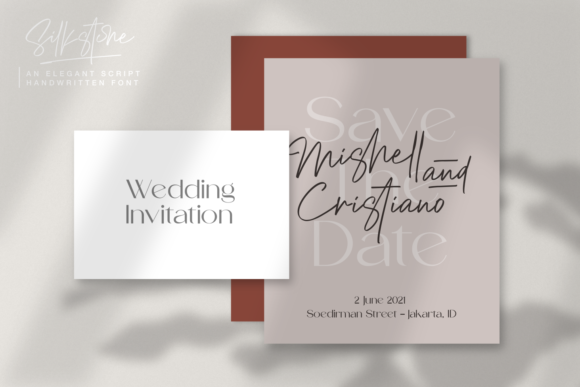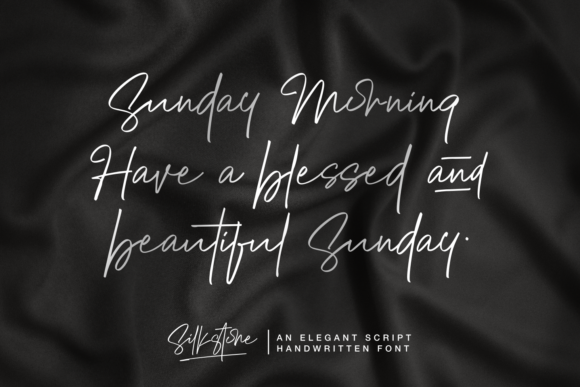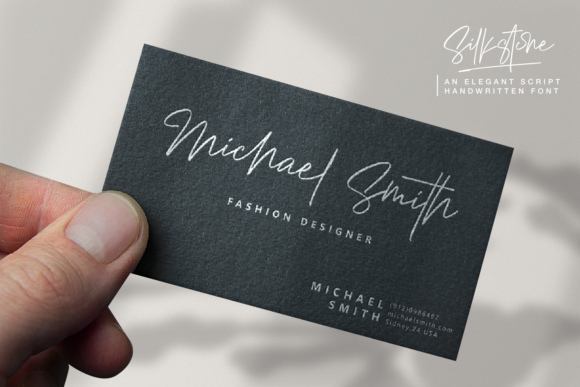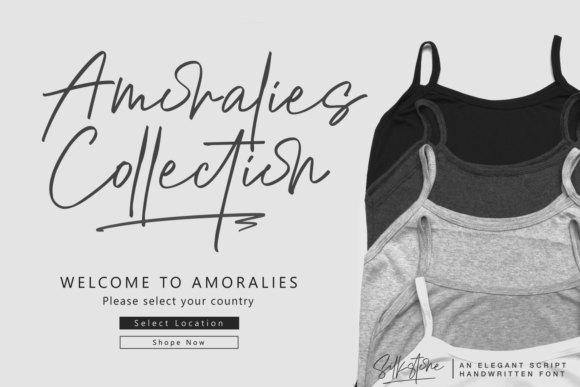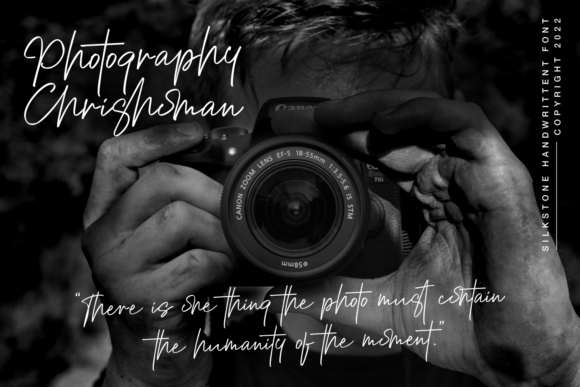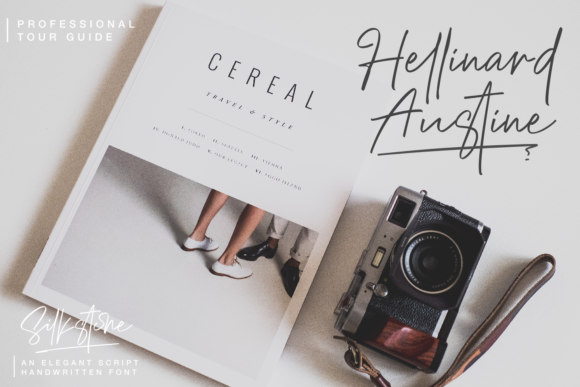
Introduction to Silkstone Font
As a designer, have you ever been stuck searching for the perfect font to elevate your creative project? Maybe you’re looking for a font that exudes elegance and sophistication, yet still conveys a personal touch. If so, you’re in luck because we’re about to introduce you to the beautiful Silkstone Font.
This high-quality font is a masterclass in understated style, making it an ideal choice for designers who want to create a lasting impression without being too loud. With its simple yet classy design, the Silkstone Font is perfect for a wide range of creative projects, from wedding invitations and photo watermarks to business cards and book covers.
What sets the Silkstone Font apart is its transparency – both in terms of its design and its licensing. This PUA-encoded font allows designers to access all its glyphs and swashes with ease, making it a valuable resource for any creative project.
Key Features of Silkstone Font
- High-quality design suitable for creative projects requiring a unique and elegant touch.
- Designed with precision and attention to detail, making it an excellent choice for designers seeking a sophisticated font.
- Perfect for use in logos, branding materials, and other creative projects where a touch of sophistication is needed.
- Comes with a comprehensive character set, including uppercase and lowercase letters, numbers, and special characters.
Honest Review: Silkstone Font
As a designer, I’m always on the lookout for high-quality design resources to elevate my creative projects. Recently, I stumbled upon the Silkstone Font, and I’m excited to share my honest review.
- ✨ Elegant and refined design aesthetic that’s perfect for premium or luxury-themed projects.
- ✨ Great for titles, headings, and body text due to its readability and versatility.
- ✨ High-quality vector files ensure crisp and clear output, even when scaled up.
- ⚠️ Limited language support, which might be a concern for designers working on projects with multiple language requirements.
- ⚠️ The font might not be suitable for casual or playful projects due to its formal design.
Overall, I’m impressed with the Silkstone Font’s quality and versatility. While it may have some limitations, it’s an excellent choice for designers working on high-end or premium projects. With its elegant design and high-quality output, it’s definitely worth considering as a design resource.
Tips for Getting the Most Out of the Silkstone Font
To get the most out of the Silkstone Font, use it on a high-quality design project with a transparent background. This will allow you to showcase the font’s unique characteristics and make it stand out. You can also use it in a creative project, such as a logo or branding material, to add a touch of elegance and sophistication.
The Silkstone Font is a versatile design resource that can be used in a variety of projects, including:
- Business cards and stationery
- Print materials, such as brochures and flyers